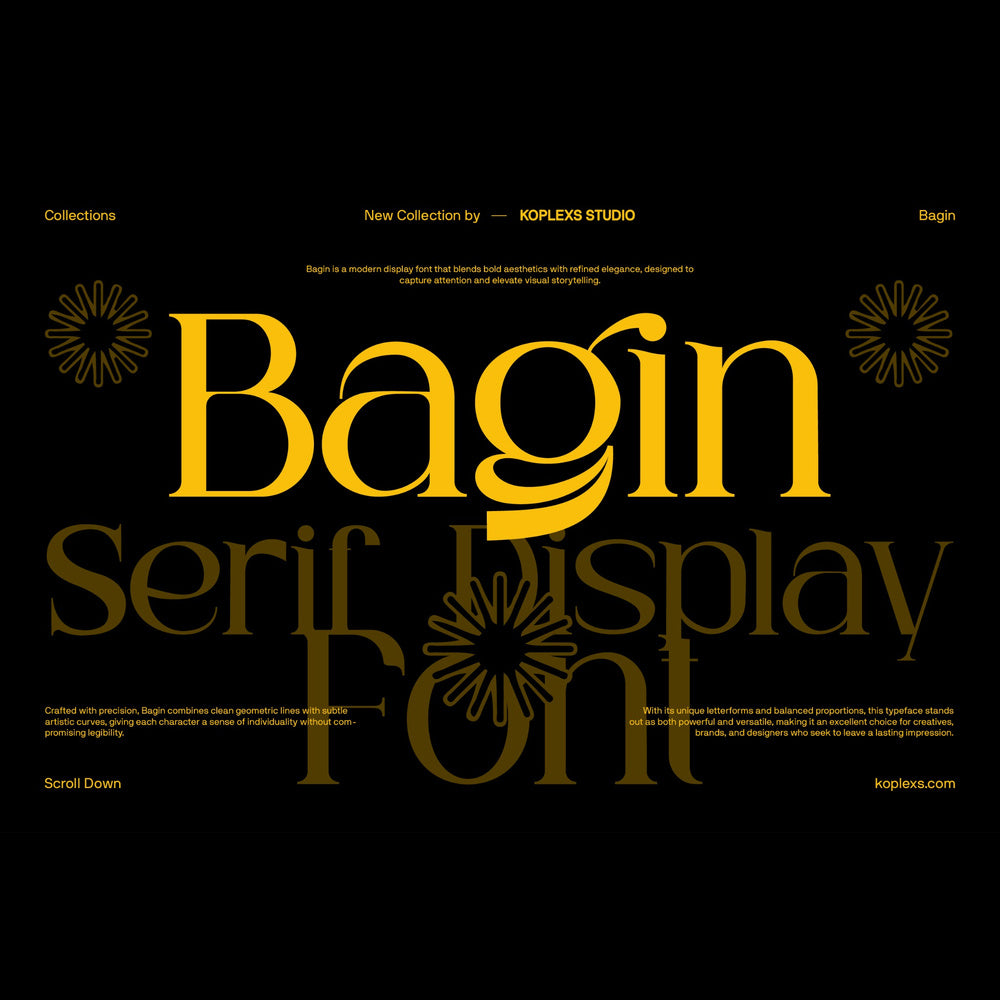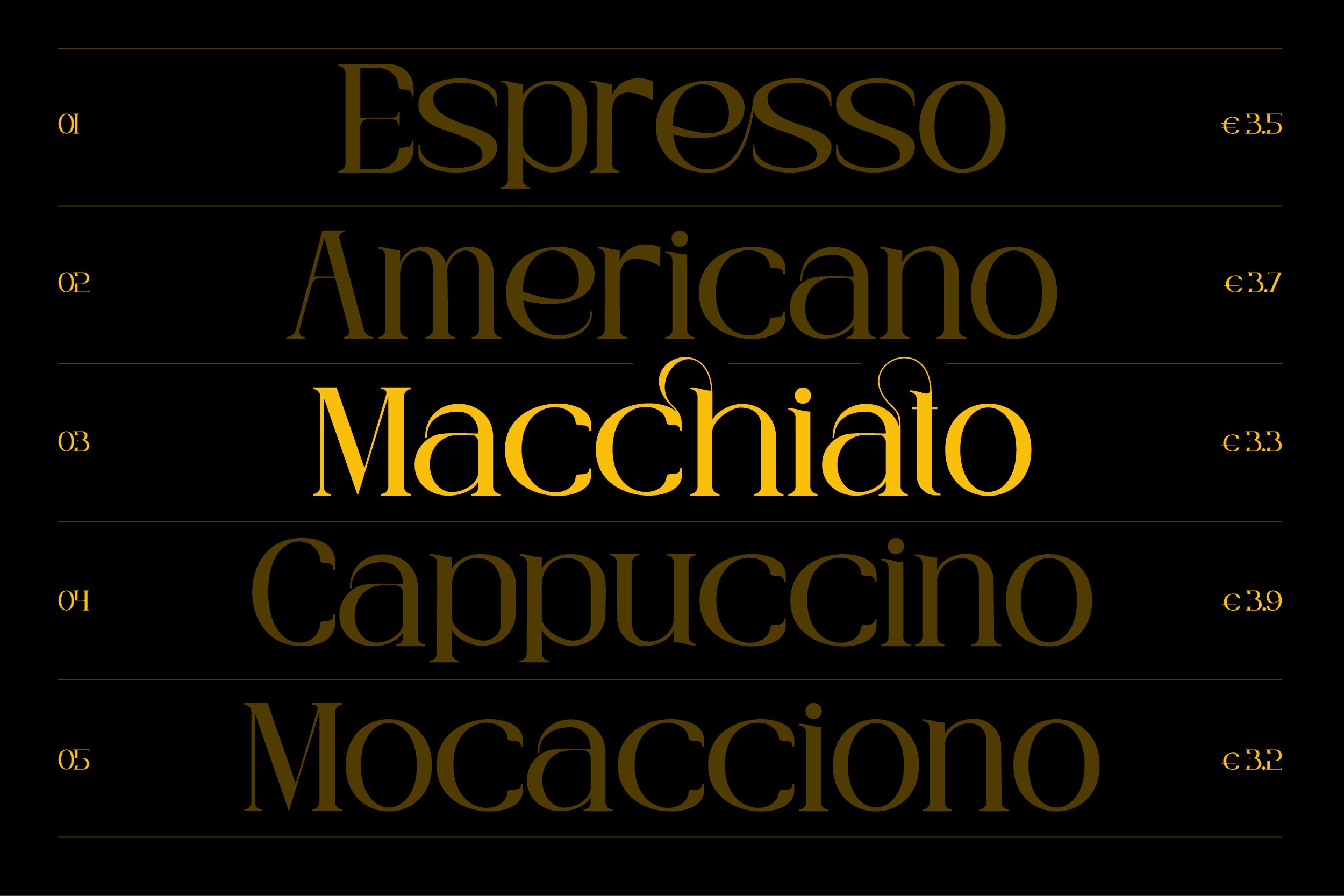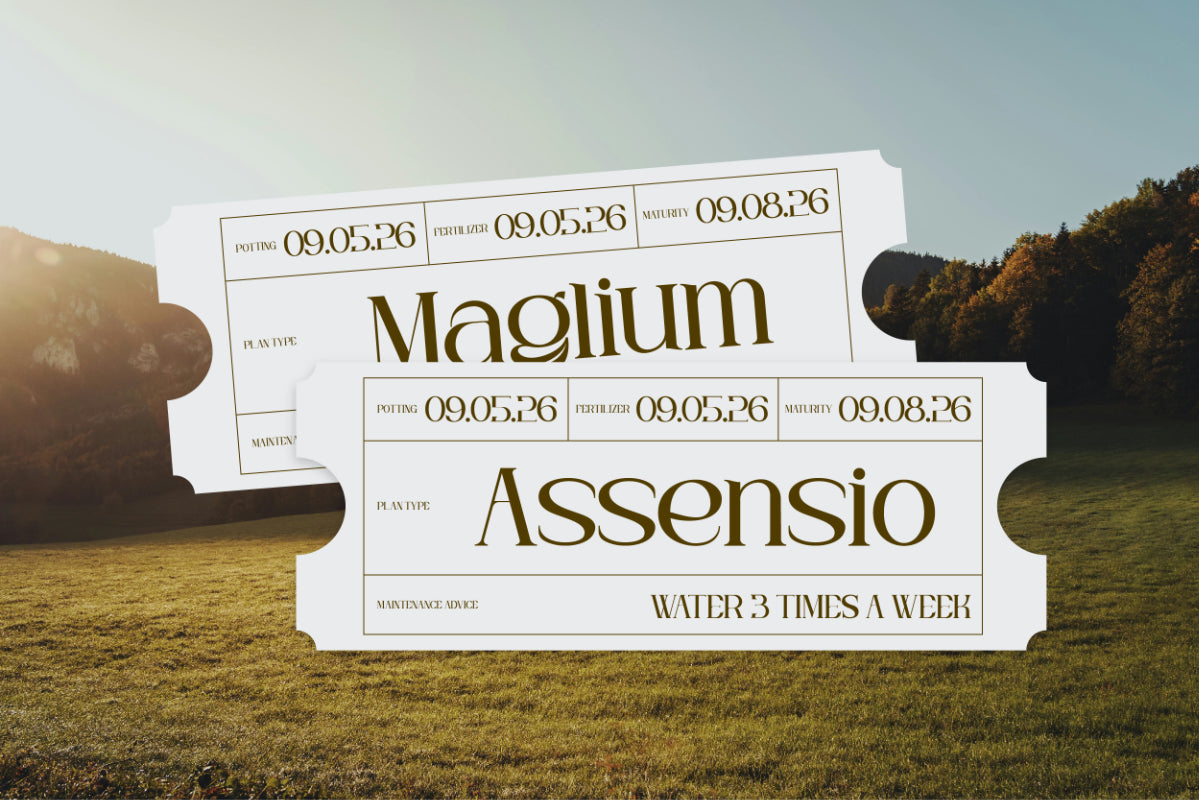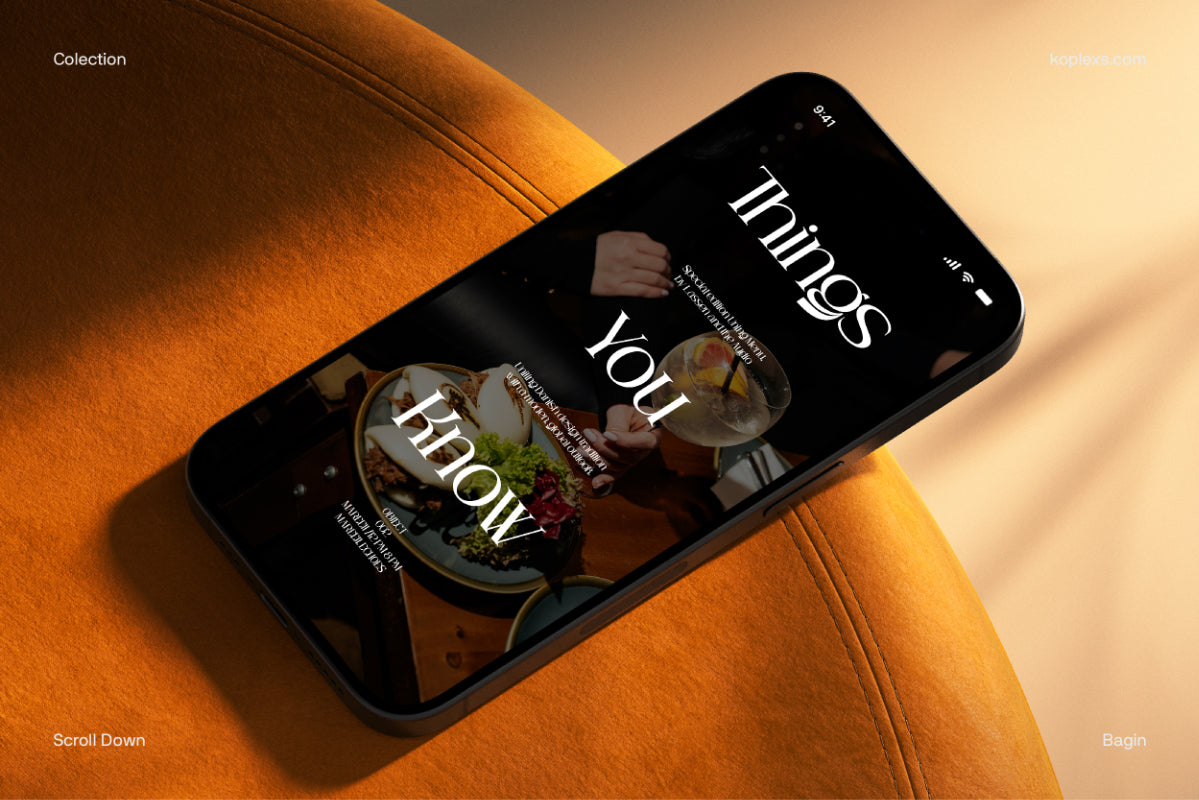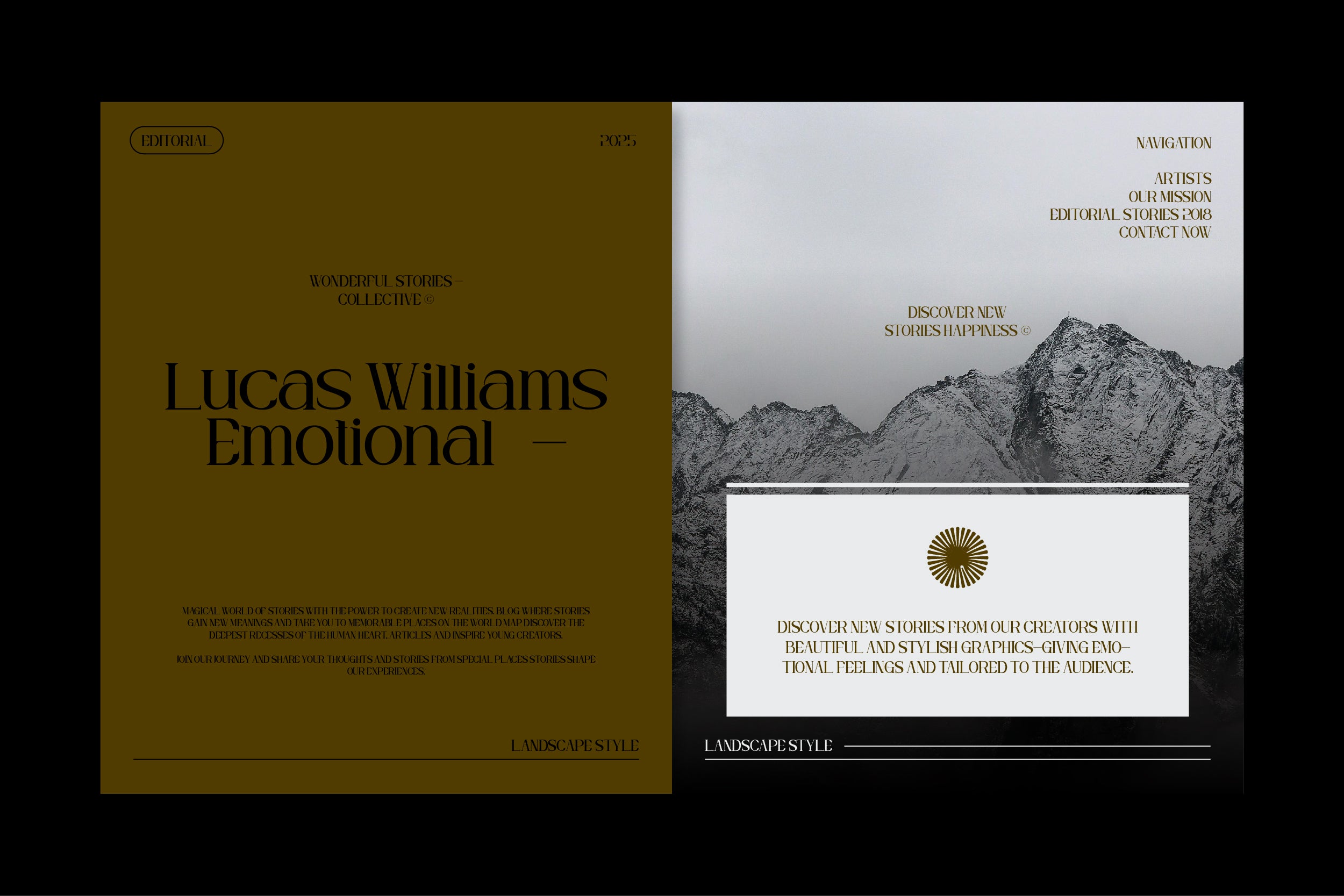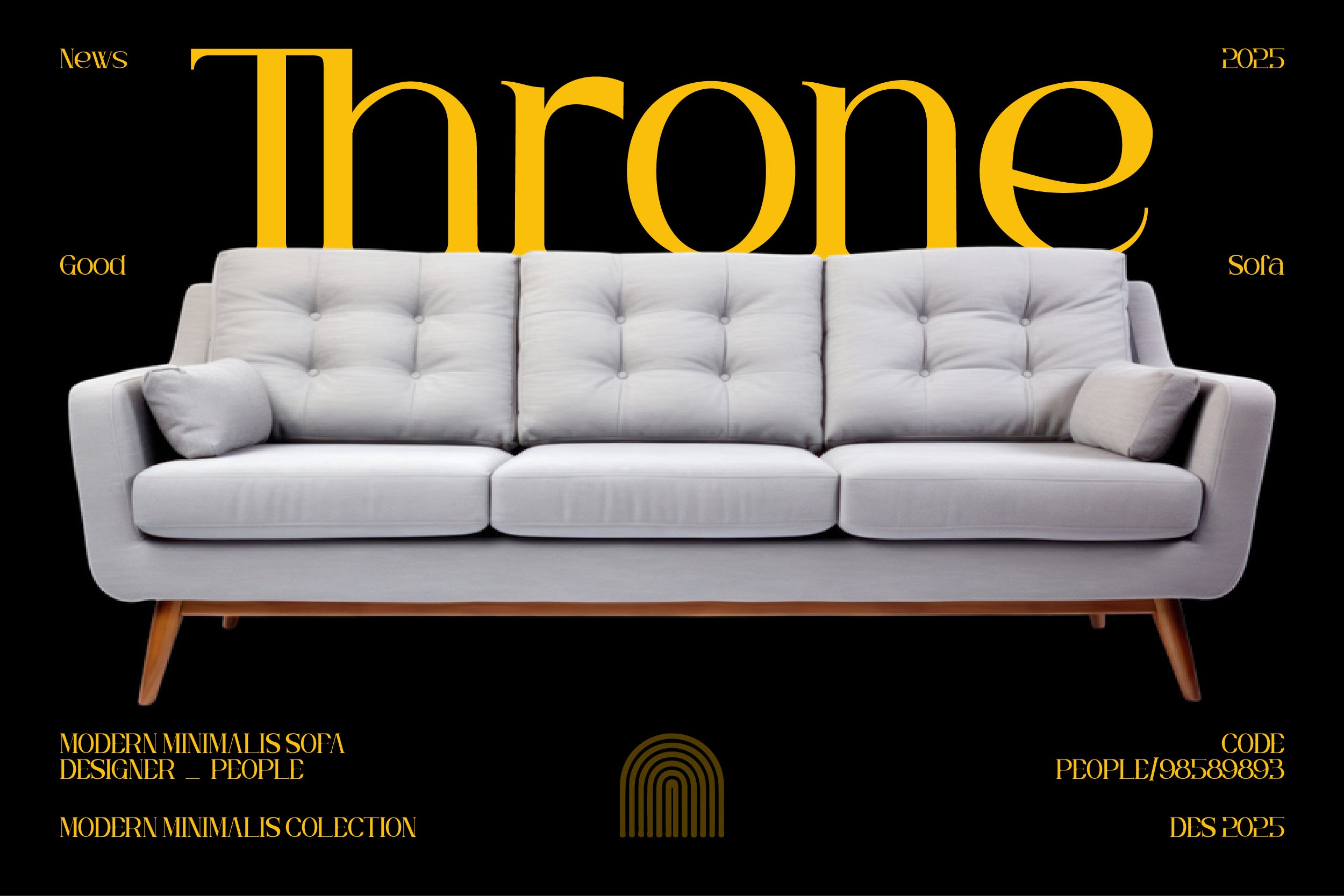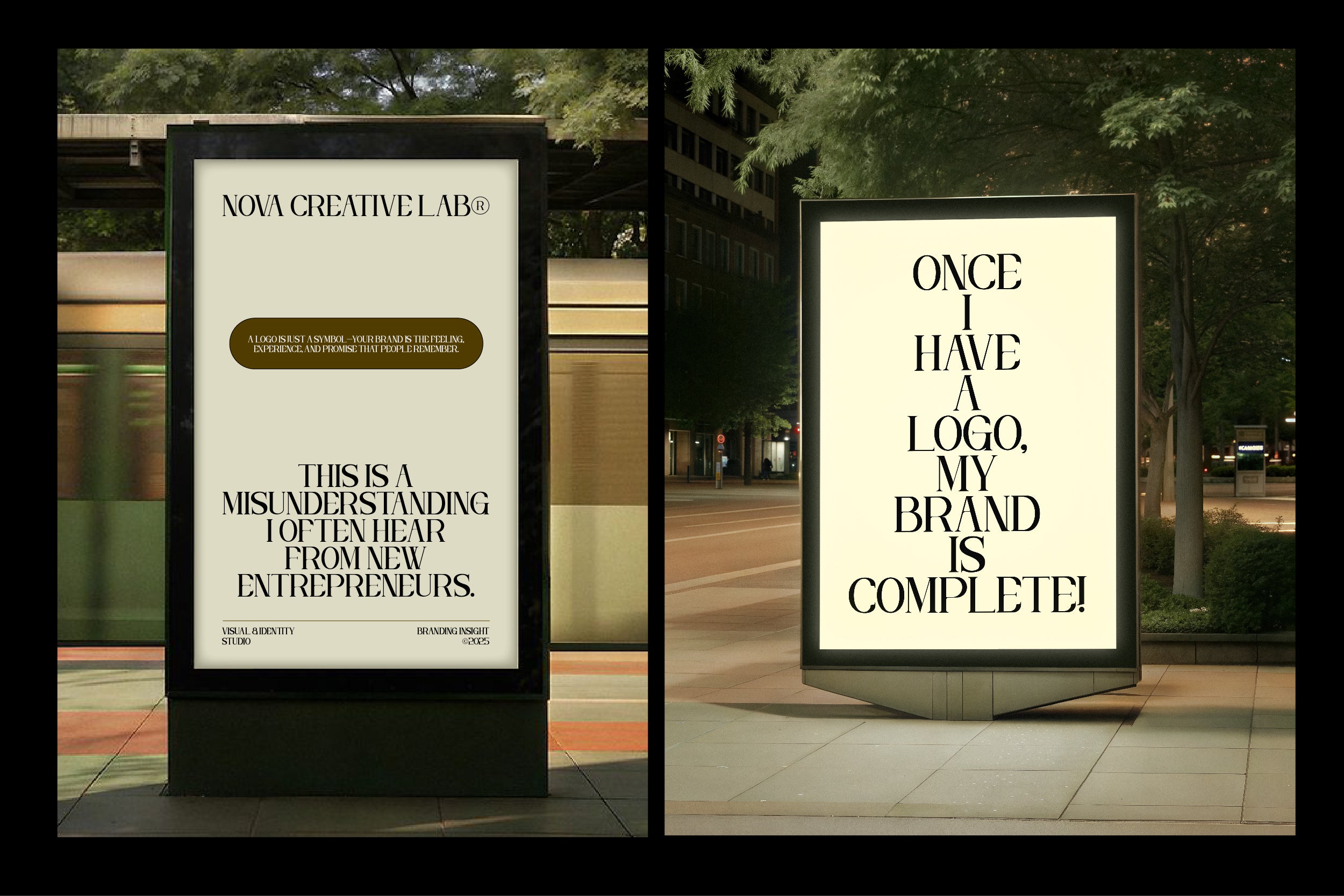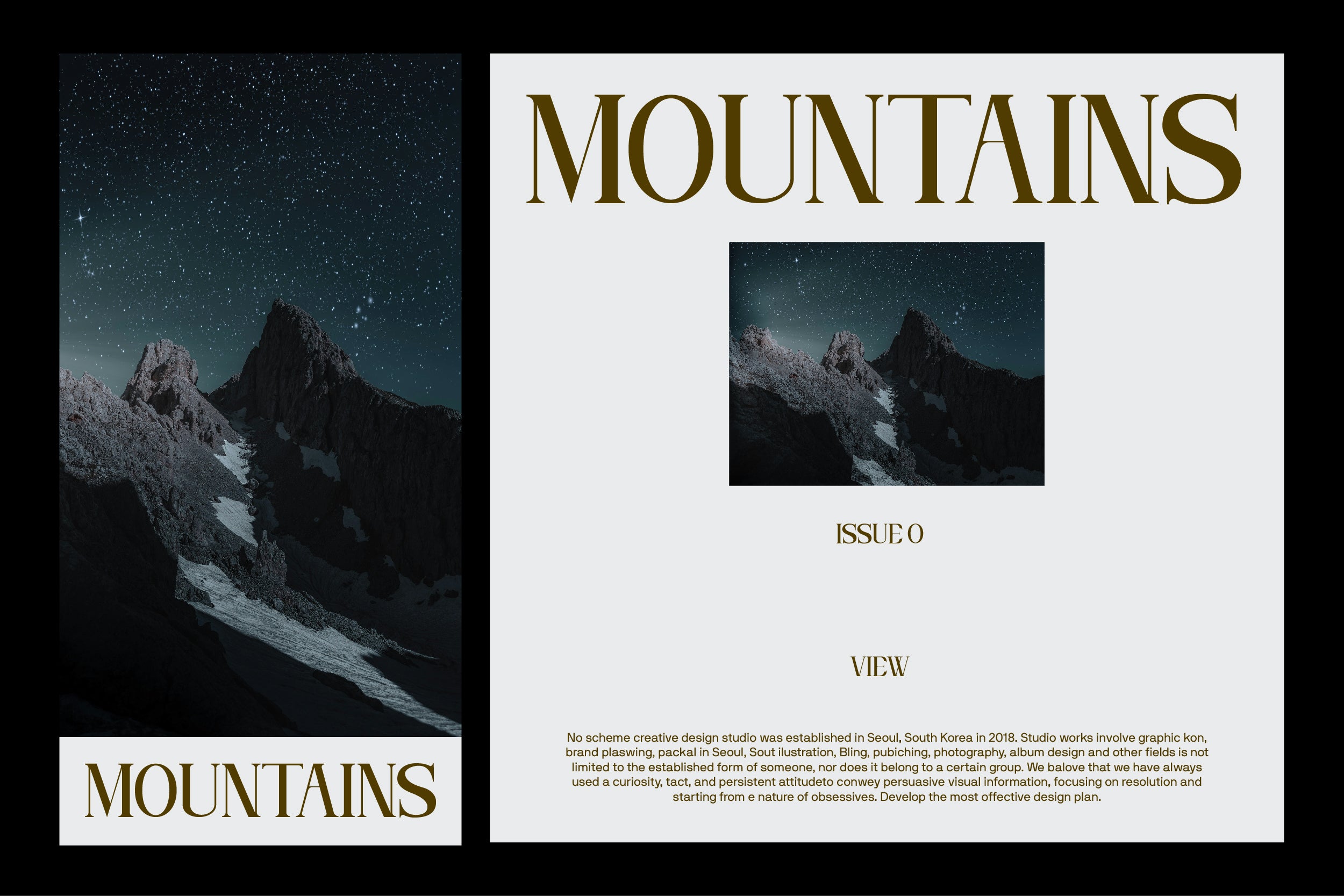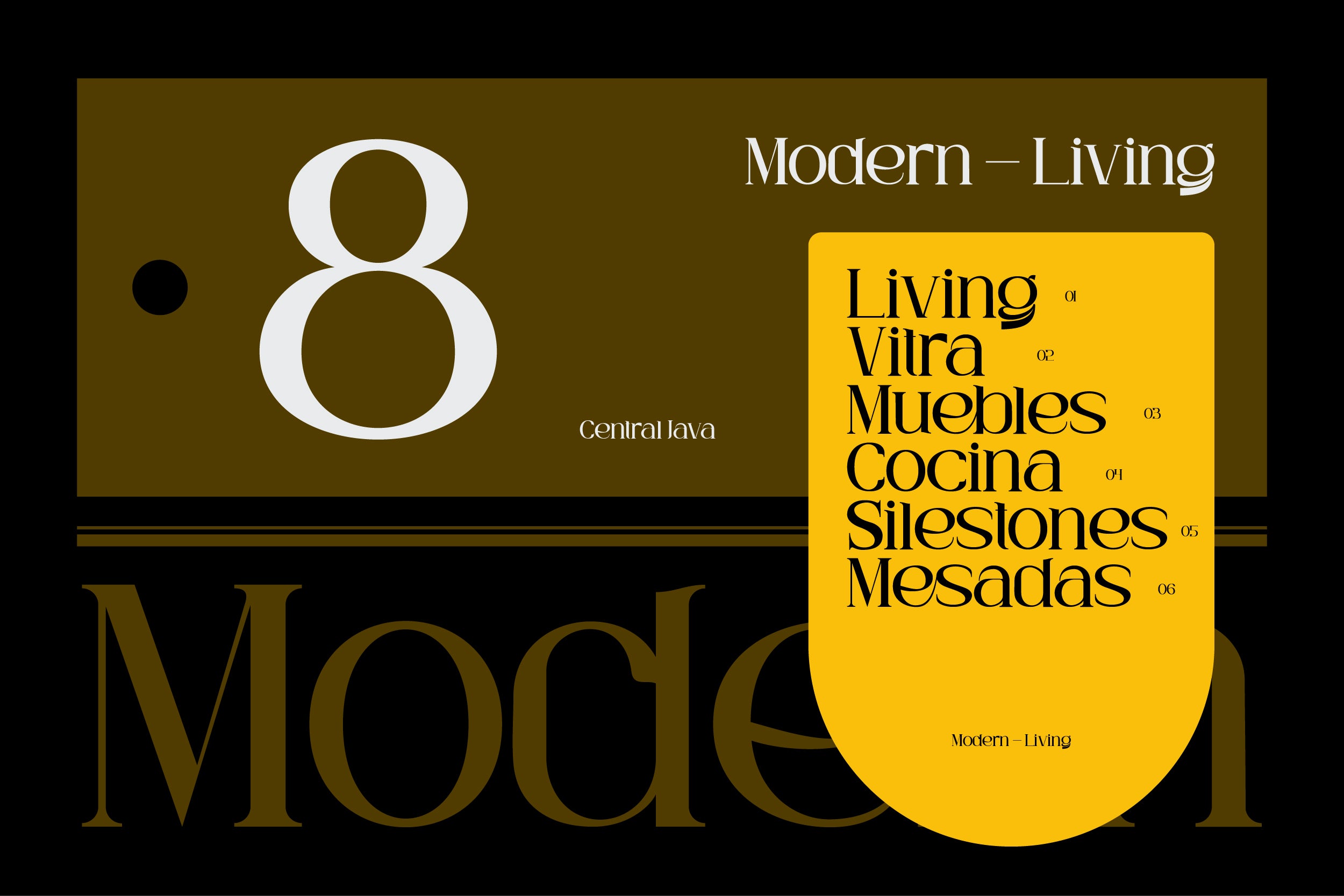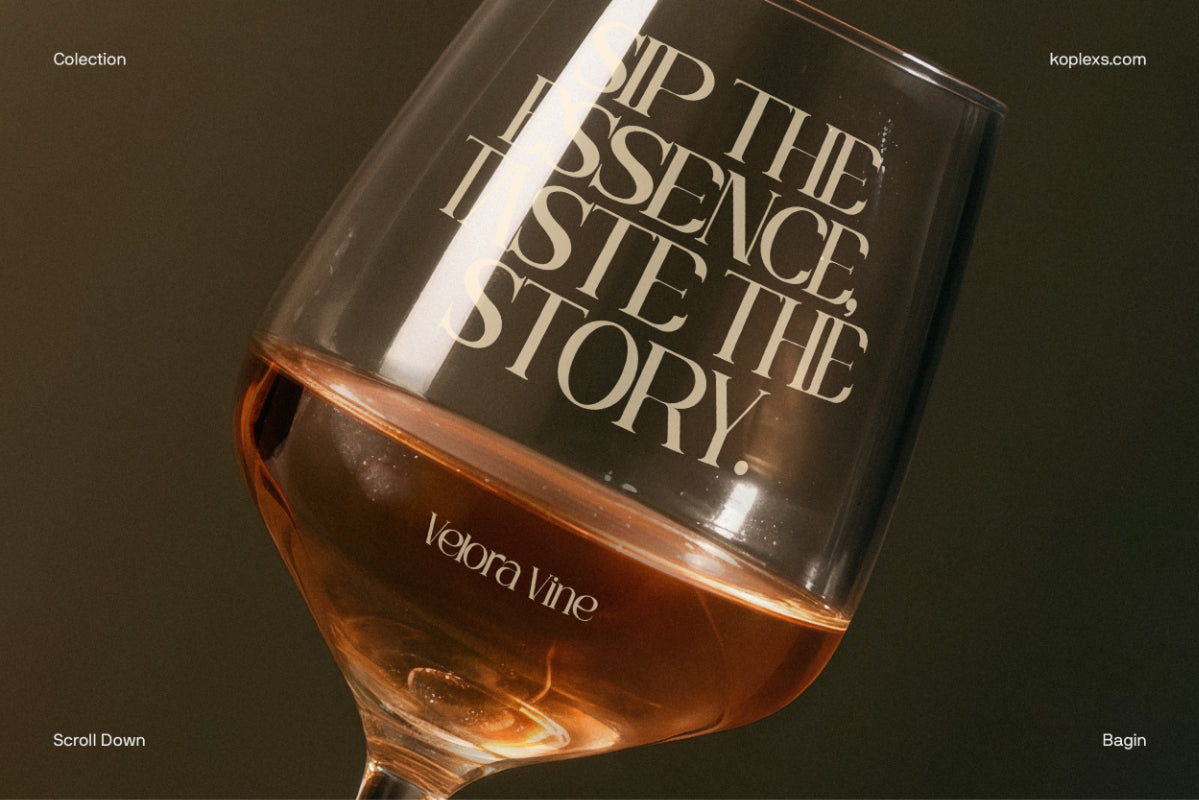
Bagin Font
Bagin Font is an elegant modern serif typeface made for creative projects that deserve more than ordinary typography. Inspired by contemporary editorial design, Bagin combines slender details, dramatic stroke contrast, balanced proportions, and expressive curves in one distinctive font.
Every character has a clean yet artistic appearance. The classic serif foundation adds a timeless quality, while its unexpected shapes and stylish alternates bring a fresh, modern personality. The result is a versatile display font that feels sophisticated, fashionable, and confidently unique.
Bagin is particularly beautiful in large headlines and short statements. Its refined letterforms immediately draw attention without making the design feel crowded. Whether you are developing a luxury brand, creating magazine artwork, or designing premium product packaging, Bagin helps your message look carefully composed and visually memorable.
Bagin Font Is Perfect For: Bagin Font is perfect for luxury logos and branding, fashion and beauty projects, magazine covers and editorial layouts, packaging and product labels, posters and advertisements, websites and social media content, wedding invitations, restaurant and café branding, books and album covers, as well as architecture and interior design projects.
Pair Bagin with a clean sans serif for body text to create a stylish and balanced layout. Use it with generous spacing for a minimalist look or oversized lettering for a bold editorial statement.
Bagin Font is an elegant modern serif typeface designed for creative projects, featuring slender details, dramatic stroke contrast, and balanced proportions. Its versatile display font combines a classic serif foundation with unique shapes and stylish alternates, making it suitable for various design applications.